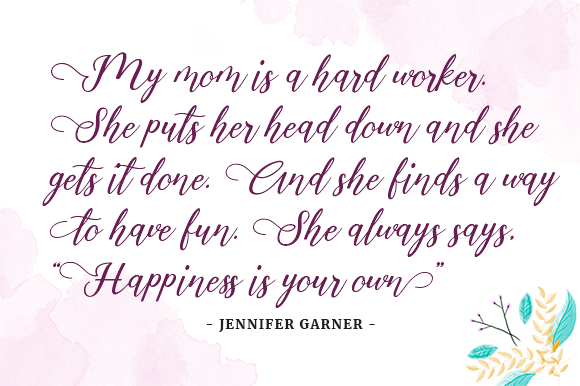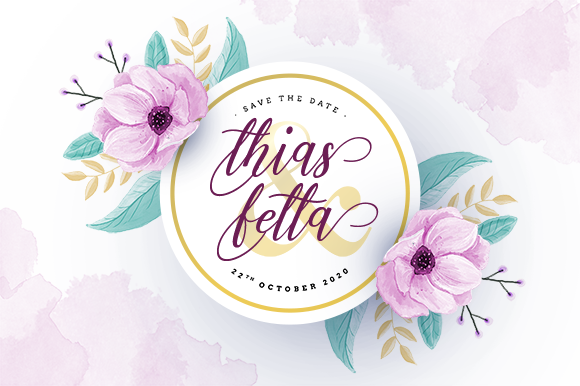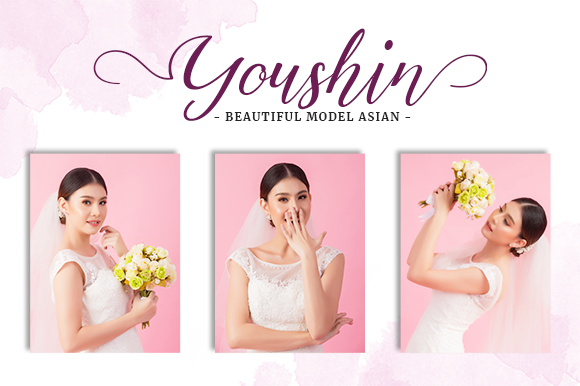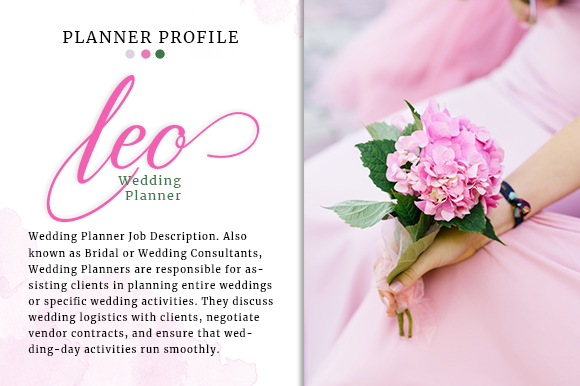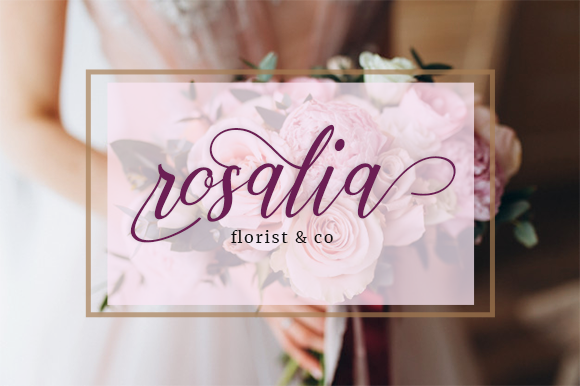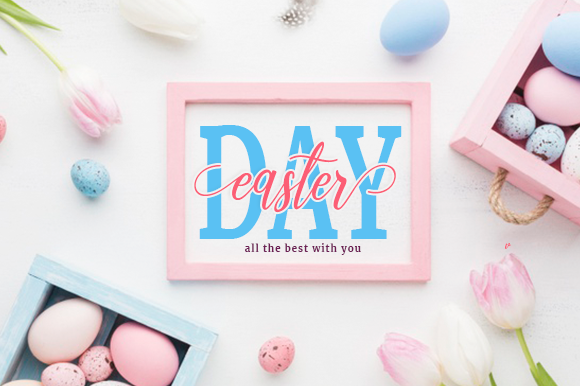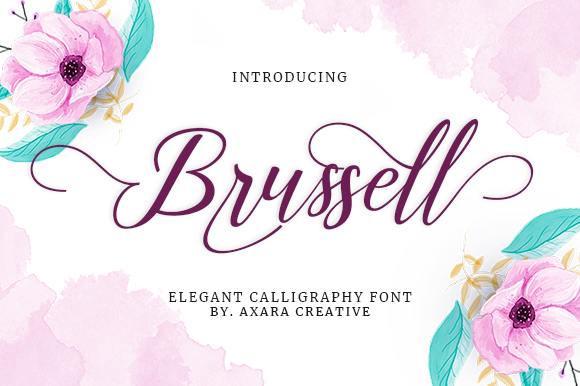
Discover the Elegance of Brussel Font: A Handwritten Masterpiece
In the world of typography, few fonts manage to strike a balance between elegance and modernity. Brussel Font is one such exceptional typeface that effortlessly merges classic calligraphic influences with a contemporary twist. This versatile handwritten font is designed to elevate your creative projects, making it a perfect choice for designers and crafters alike.
The Essence of Brussel Font
Brussel Font simplifies elegance into one truly outstanding handwritten font. Its classy calligraphic roots are evident in its fluid strokes and refined letterforms, yet it feels remarkably contemporary and fresh. This unique blend of traditional and modern elements makes Brussel Font an excellent addition to any design project.
One of the standout features of Brussel Font is its versatility. Whether you’re working on letterheads, titles, or stationery, this font adapts seamlessly to various design needs. Its elegant and refined appearance makes it suitable for:
- Letterheads: Add a touch of sophistication to your business correspondence with Brussel Font.
- Titles: Create eye-catching headings and titles for your blog posts, articles, or marketing materials.
- Stationery: Elevate your stationery designs, such as invitations, greeting cards, or thank-you notes, with a dash of elegance.
Why Designers and Crafters Love Brussel Font
Designers and crafters appreciate fonts that offer flexibility and style. Brussel Font delivers on both fronts, making it an attractive choice for various creative projects. Here are a few reasons why:
- Ease of Use: Brussel Font is easy to read and works well in both digital and print formats.
- Customization: The font’s unique characteristics allow for creative freedom, enabling you to experiment with different design elements.
- Timeless Appeal: Brussel Font’s classic influences ensure it remains relevant and stylish, even as design trends evolve.
Tips for Using Brussel Font Effectively
To get the most out of Brussel Font, consider the following tips:
- Pair with Neutral Fonts: Combine Brussel Font with simpler fonts to create visual contrast and emphasize key design elements.
- Experiment with Colors: Play with different color schemes to find the perfect match for your design.
- Pay Attention to Spacing: Adjust letter spacing and line height to ensure optimal readability.
Brussel Font is a remarkable handwritten font that embodies elegance and sophistication. Its versatility, ease of use, and timeless appeal make it an excellent choice for designers and crafters seeking to elevate their creative projects. Whether you’re working on a professional design or a personal craft project, Brussel Font is sure to inspire and impress.